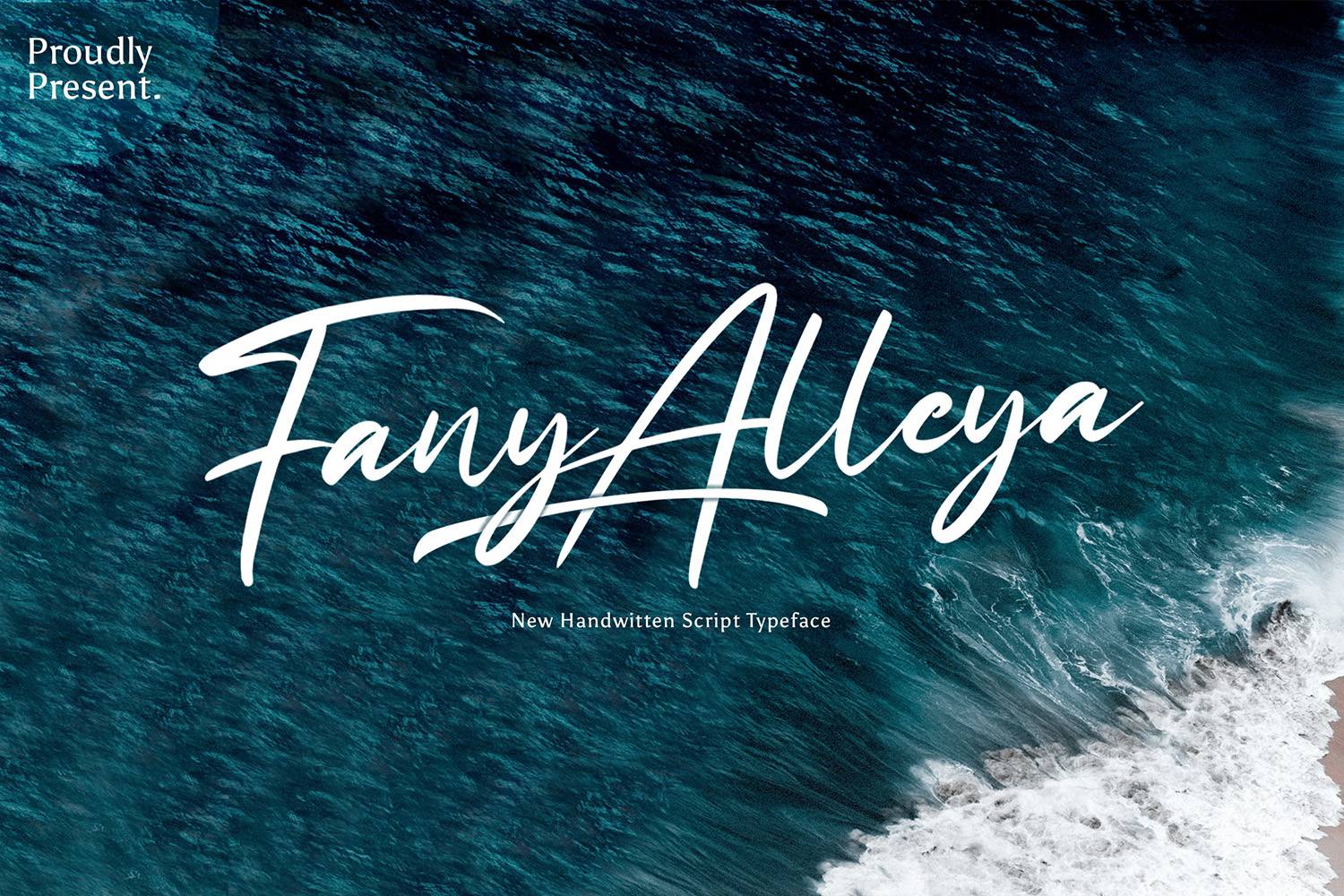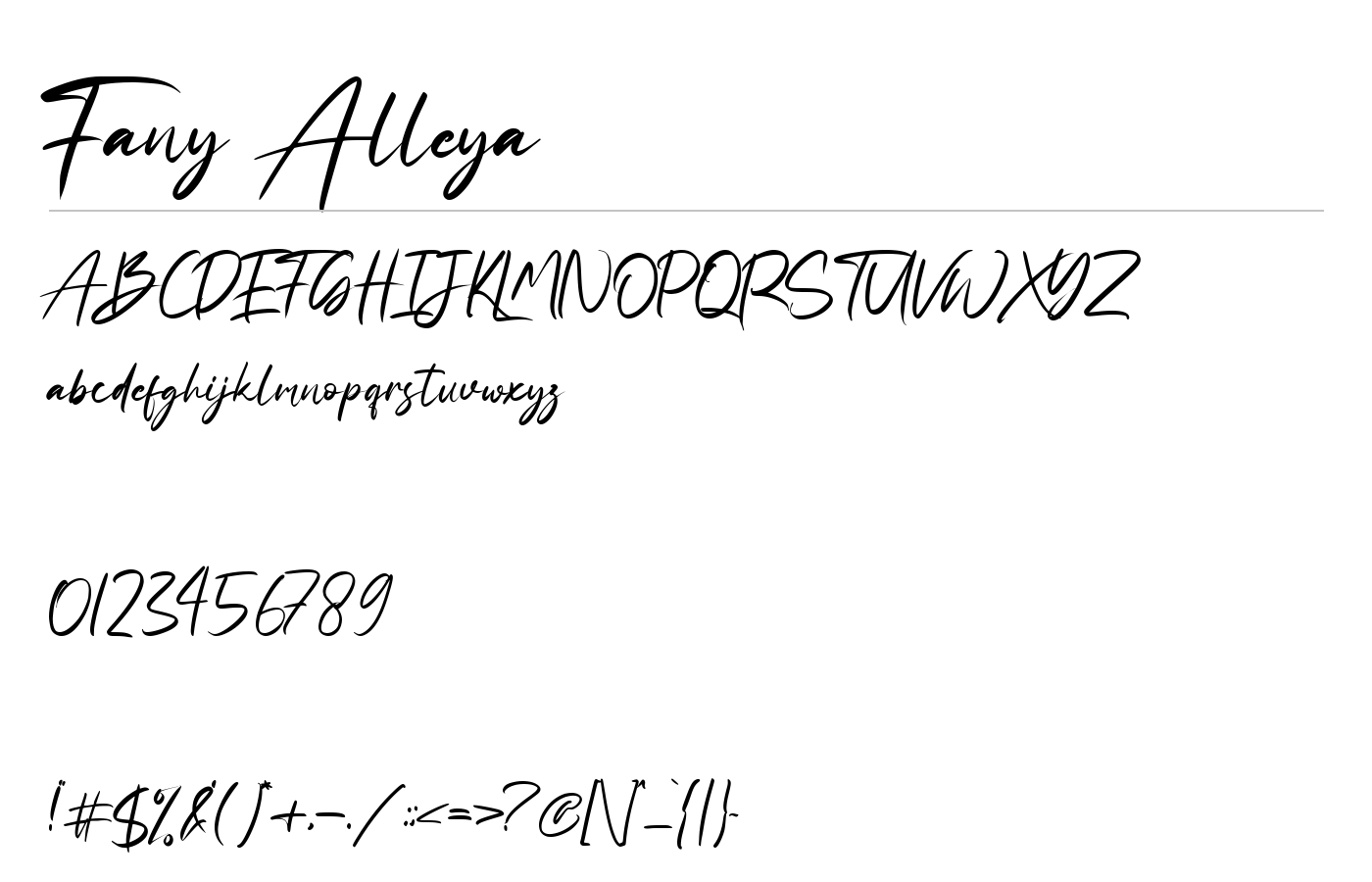
Fany Alleya is a lively and elegant handwritten script font featuring slender, flowing strokes with a casual yet refined feel. Its tall x-height and slightly varied weight give it a dynamic, natural look that works beautifully for invitations, branding, and stylish headlines where a personal, expressive touch is desired. This font shines in creative and fashion-forward projects that need a warm, sophisticated vibe with a hint of playfulness.